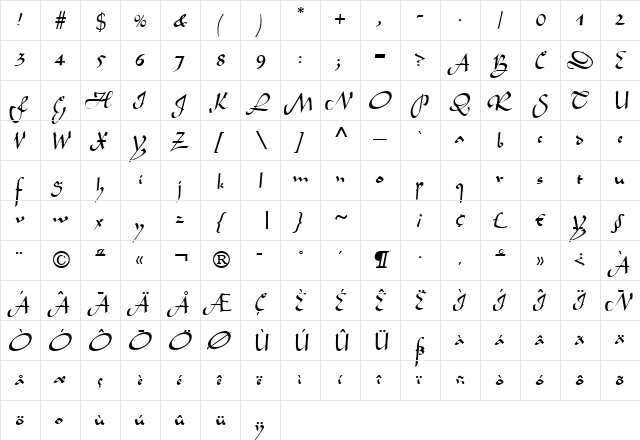
Script-L690 Regular Font Preview
Script-L690 Regular
Script-L690 Regular Font Details
Design Context for Script-L690 Typeface
Script-L690 flows with the natural rhythm of handwritten lettering, making it ideal for designs that call for warmth and personal expression.